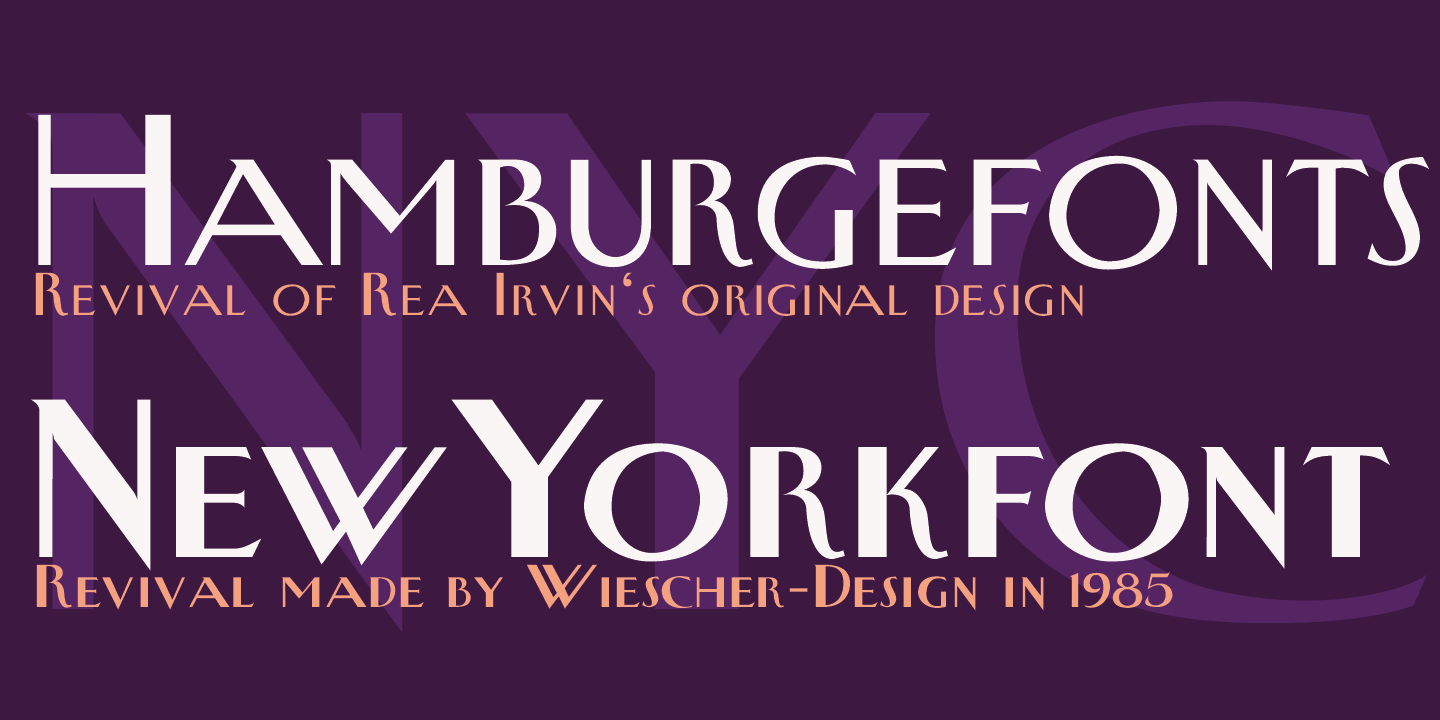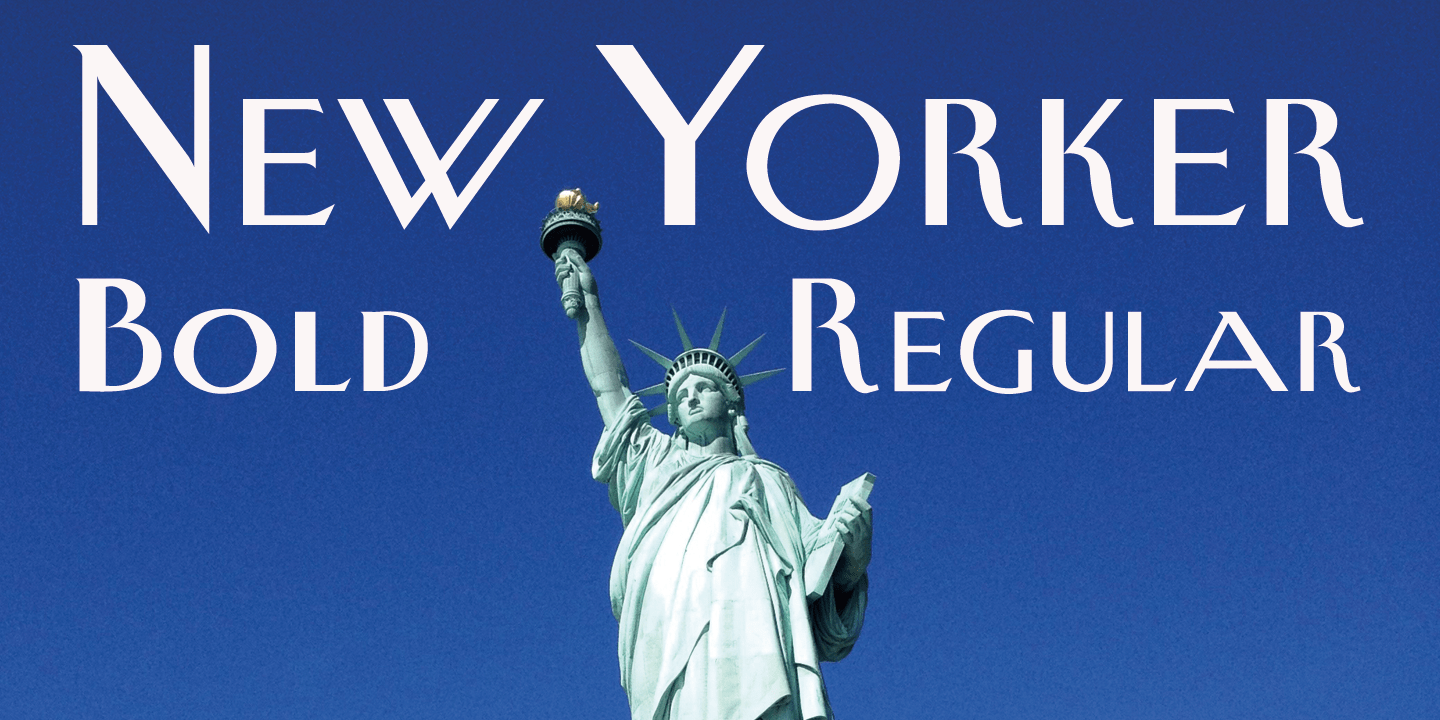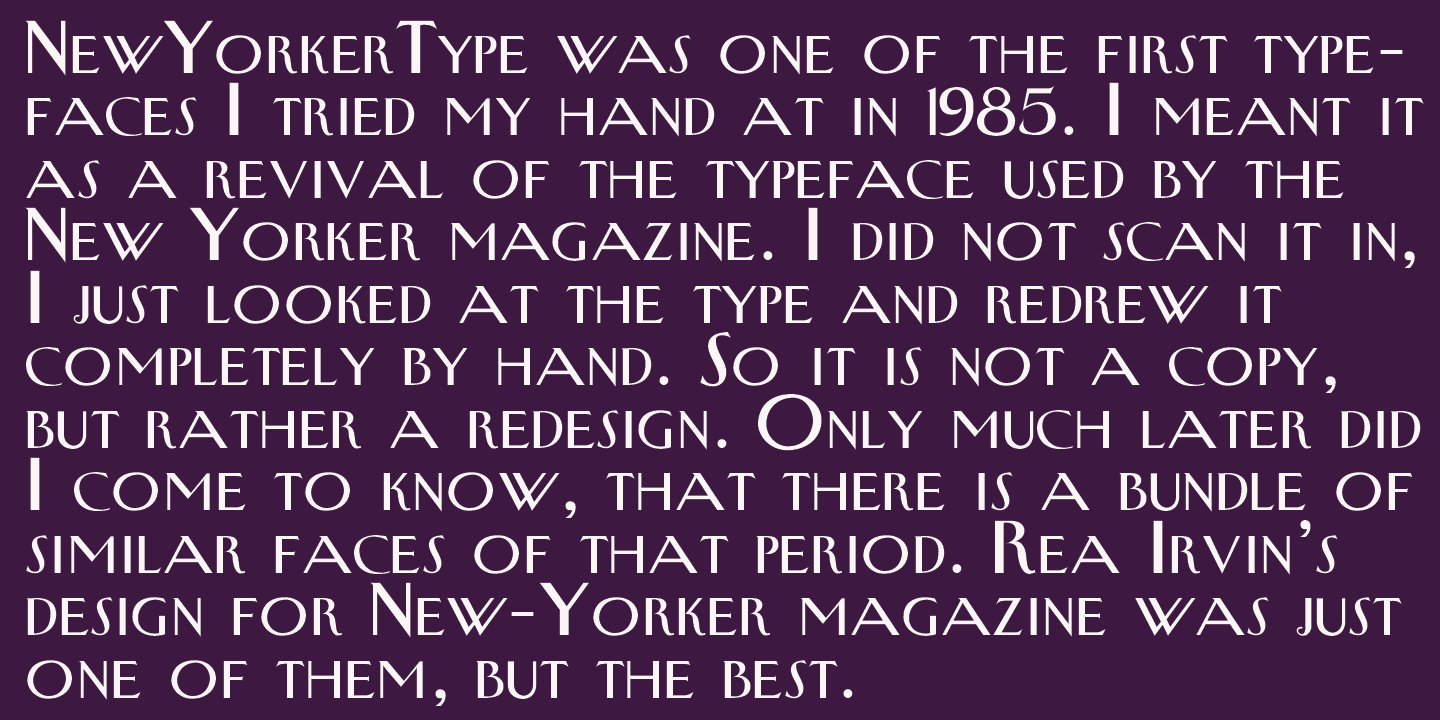
New Yorker Type
Font Family by Wiescher Design
NewYorkerType was one of the first typefaces I tried my hand at in 1985.
I meant it as a revival of the typeface used by the New Yorker magazine. I did not scan it in, I just looked at the type and redrew it completely by hand. So it is not just a copy, but rather a redesign. Only much later did I come to know, that there is a bundle of similar typefaces of that period. Rea Irvin's design for New-Yorker magazine was just one of them, but the best.
Yours, sincerely honoring Rea Irvin a great type- and magazine-designer Gert Wiescher